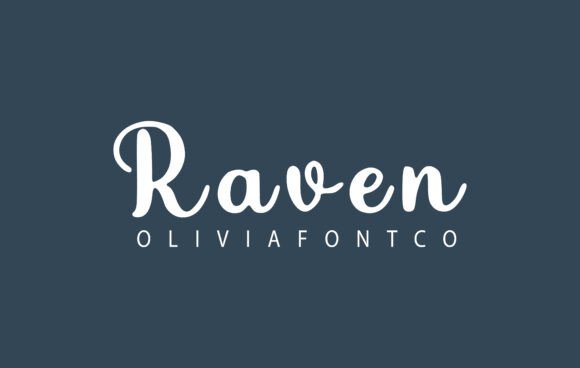
Raven Font: The Ultimate Handwritten Font for Creative Projects
In the world of typography, fonts play a crucial role in conveying the tone and personality of a brand or creative project. Among the numerous fonts available, Raven Font has gained significant attention for its authentic handwritten style with a romantic touch. In this article, we’ll explore the features, benefits, and uses of Raven Font, and why it’s becoming a favorite among designers and creatives.
What is Raven Font?
Raven Font is a carefully crafted handwritten font designed to add a touch of elegance and sophistication to any creative project. Its unique blend of classic and modern elements makes it an excellent choice for designers seeking a font that exudes romance and whimsy. Whether you’re working on a magazine headline, social media post, branding campaign, wedding invitation, or card, Raven Font is sure to make a lasting impression.
Key Features of Raven Font
- Authentic Handwritten Style: Raven Font boasts an authentic handwritten style that gives it a personal and human touch.
- Romantic Touch: The font’s romantic undertones make it perfect for projects that require a touch of elegance and sophistication.
- Legibility: Despite its ornate appearance, Raven Font is highly legible, making it suitable for use as both title and body text.
- Versatility: Raven Font can be used for a wide range of creative projects, from magazine headlines and social media posts to branding campaigns and wedding invitations.
Benefits of Using Raven Font
Raven Font offers several benefits that make it an attractive choice for designers and creatives. Some of the key advantages include:
- Unique and Memorable: Raven Font’s distinctive style ensures that your creative project stands out from the crowd and leaves a lasting impression on your audience.
- Emotional Connection: The font’s romantic and handwritten style helps create an emotional connection with your audience, making your message more relatable and engaging.
- Time-Saving: With Raven Font, you can save time and effort in selecting a font that matches your project’s tone and personality.
- High-Quality: Raven Font is designed to deliver high-quality results, ensuring that your creative project looks professional and polished.
Uses of Raven Font
Raven Font’s versatility makes it suitable for a wide range of creative projects, including:
- Magazine Headlines: Add a touch of elegance and sophistication to your magazine headlines with Raven Font.
- Social Media Posts: Use Raven Font to create engaging and eye-catching social media posts that resonate with your audience.
- Branding Campaigns: Establish a strong brand identity with Raven Font, which can be used for logos, taglines, and marketing materials.
- Wedding Invitations: Add a romantic touch to your wedding invitations and save-the-date cards with Raven Font.
- Cards and Stationery: Use Raven Font to create beautiful and personalized cards, letters, and stationery.
Tips for Using Raven Font Effectively
To get the most out of Raven Font, consider the following tips:
- Pair with Complementary Fonts: Pair Raven Font with complementary fonts to create visual interest and hierarchy in your design.
- Experiment with Colors: Experiment with different colors to find the perfect combination that complements Raven Font’s romantic and elegant style.
- Use for Emphasis: Use Raven Font to draw attention to key messages, headlines, or calls-to-action.
- Keep it Legible: Ensure that Raven Font is legible by using it at the right font size and line height.
Raven Font is an exceptional handwritten font that offers a unique blend of romance, elegance, and sophistication. Its versatility, legibility, and high-quality design make it an excellent choice for a wide range of creative projects. Whether you’re a designer, marketer, or simply a creative enthusiast, Raven Font is sure to become a favorite in your toolkit. So why wait? Download Raven Font today and take your creative projects to the next level!